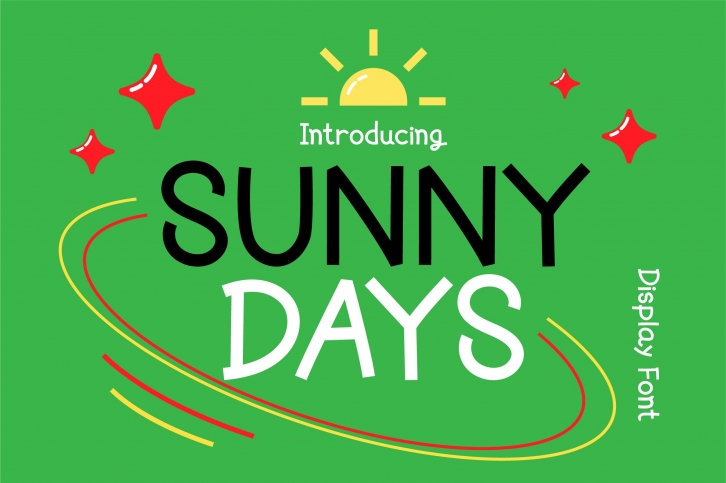
“Sunny Days” is a cute letter and interesting display font. This font will be a wonderful asset to your font library, as it has the potential to enhance any creation and will be the perfect choice for brightening up your designs. Great for a wide range of creations such as magazine titles, books, social media posts, statements, and so much more!